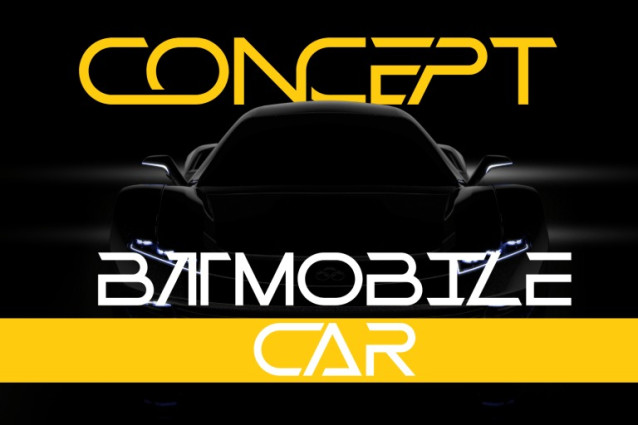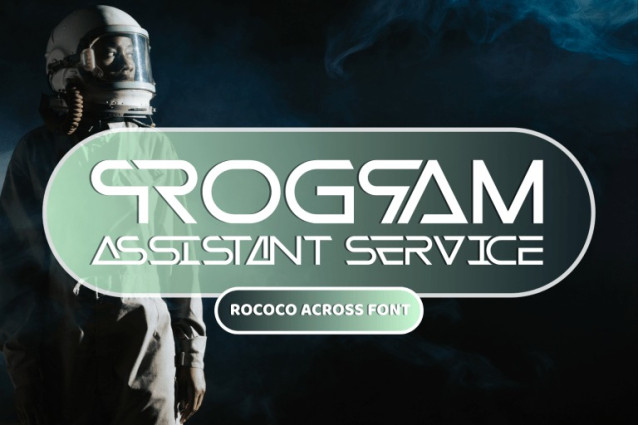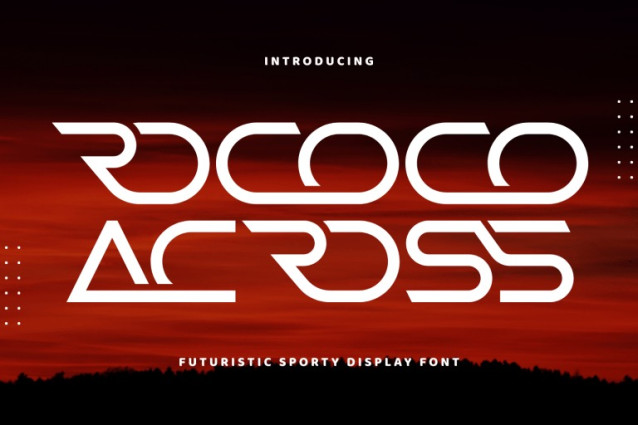
Rococo Across Font
Rococo Across – Futuristic Font – A Futuristic Techno Display Font, a sleek futuristic display font that embodies innovation and modern aesthetics. With its geometric forms, sharp edges, and streamlined curves, this typeface conveys a sense of speed, technology, and digital sophistication. Perfectly suited for sci-fi posters, gaming titles, technology branding, digital interfaces, album covers, and modern advertising, Rococo Across delivers a bold visual identity that stands out with futuristic elegance.
🔤 Font Features:
Uppercase Letters
~100 Futuristic Ligatures
Accented Characters for multilingual support
🔤 About 100 ligatures combined with Stylistic Alternates Font: